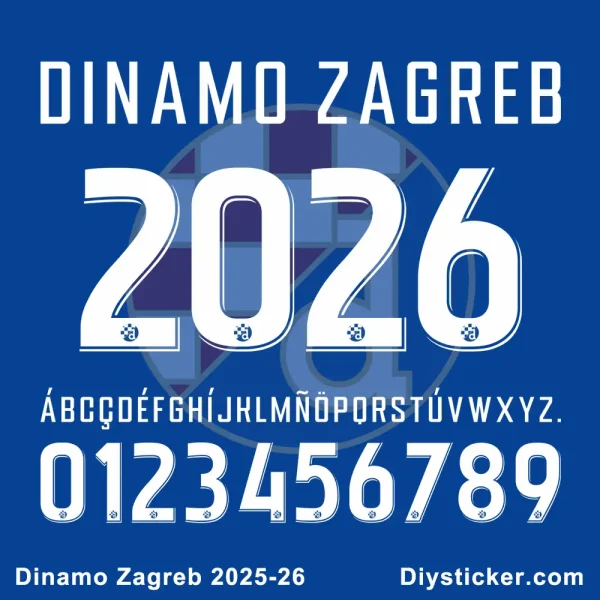
Design with the power of the Croatian champions using the official Dinamo Zagreb 2025-26 Font. This professionally crafted typeface captures the club’s distinctive style, allowing you to create authentic designs for any project supporting The Blues.